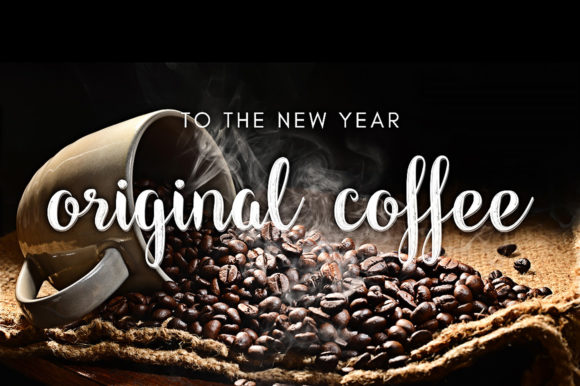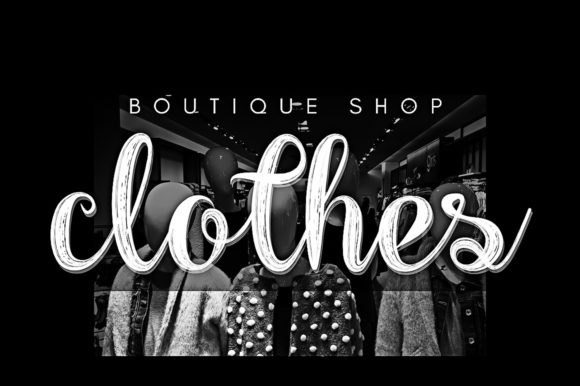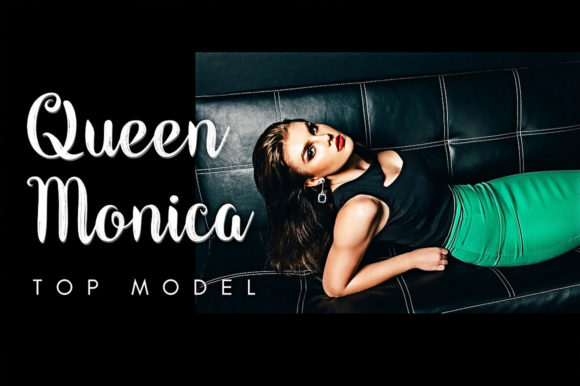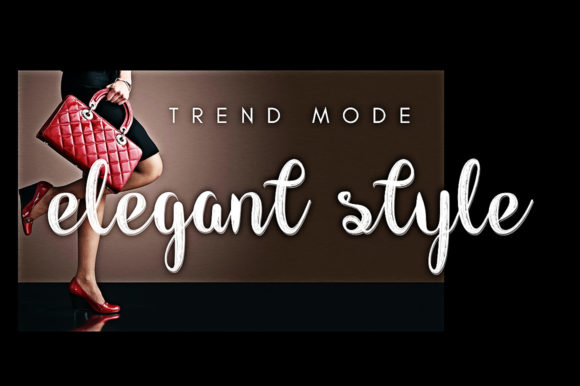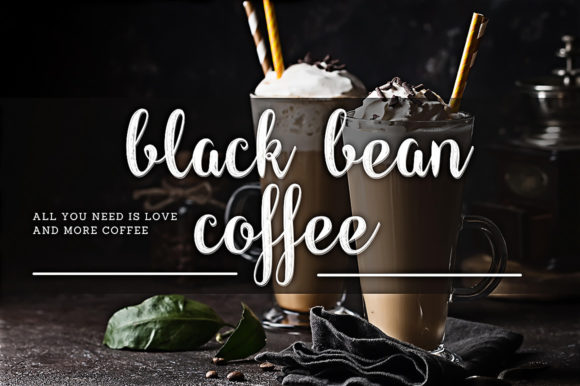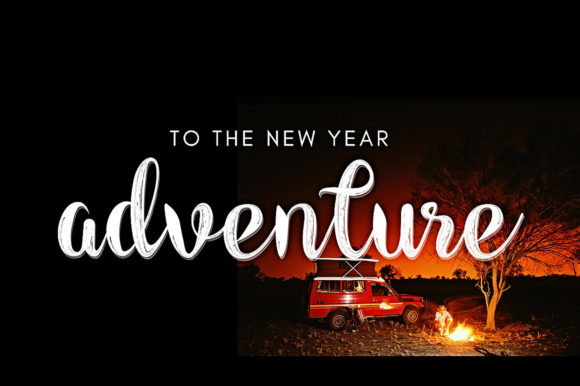
Introducing Callie Font: The Ultimate Elegant Typographic Solution
Are you a designer, crafter, or creative enthusiast looking for a font that embodies simplicity, uniqueness, and elegance? Look no further than Callie Font! This stunning typeface is designed to elevate your visual projects, from wedding invitations and business cards to social media posts and wall art.
What Makes Callie Font So Special?
Callie Font is a simple, yet distinctive font that boasts an effortless elegance. Its clean lines, precise kerning, and beautiful glyphs make it perfect for a wide range of applications. Whether you’re creating a sophisticated wedding invitation or a bold poster, Callie Font is sure to impress.
The versatility of Callie Font knows no bounds. Here are just a few examples of how you can use this incredible font:
• Business cards and corporate branding
• Greeting cards and gift tags
• Posters and flyers
• Fashion branding and advertising
• Social media posts and graphics
• Wall art and home decor
Perfectly Crafted for High-Quality Design
Callie Font is meticulously crafted to ensure that every detail, from characters to kerning, is perfect for use in all your work. The font’s graphics are of exceptionally high quality, making it ideal for both digital and print applications.
Callie Font is PUA (Private Use Area) encoded, which means you can easily access all the amazing glyphs and ligatures. This feature allows you to unlock the full creative potential of the font, without requiring any special software or technical expertise.
Callie Font offers numerous benefits for designers and crafters, including:
• Flexibility: Suitable for a wide range of creative projects and applications
• High-quality graphics: Exceptional clarity and precision, ensuring your work stands out
• Time-saving: PUA encoding allows for quick and easy access to glyphs and ligatures
• Unique style: Adds a touch of elegance and sophistication to any project
Tips for Getting the Most Out of Callie Font
To maximize the creative potential of Callie Font, consider the following tips:
• Experiment with different font sizes and colors to create visual interest
• Combine Callie Font with other fonts to create a unique typographic style
• Use the font’s glyphs and ligatures to add decorative touches to your designs
• Take advantage of the font’s high-quality graphics to create stunning prints and digital images
Callie Font is an exceptional typographic solution for designers, crafters, and creative enthusiasts. Its unique blend of simplicity, elegance, and versatility makes it perfect for a wide range of applications. With its PUA encoding and high-quality graphics, Callie Font is sure to become a go-to font in your creative arsenal.